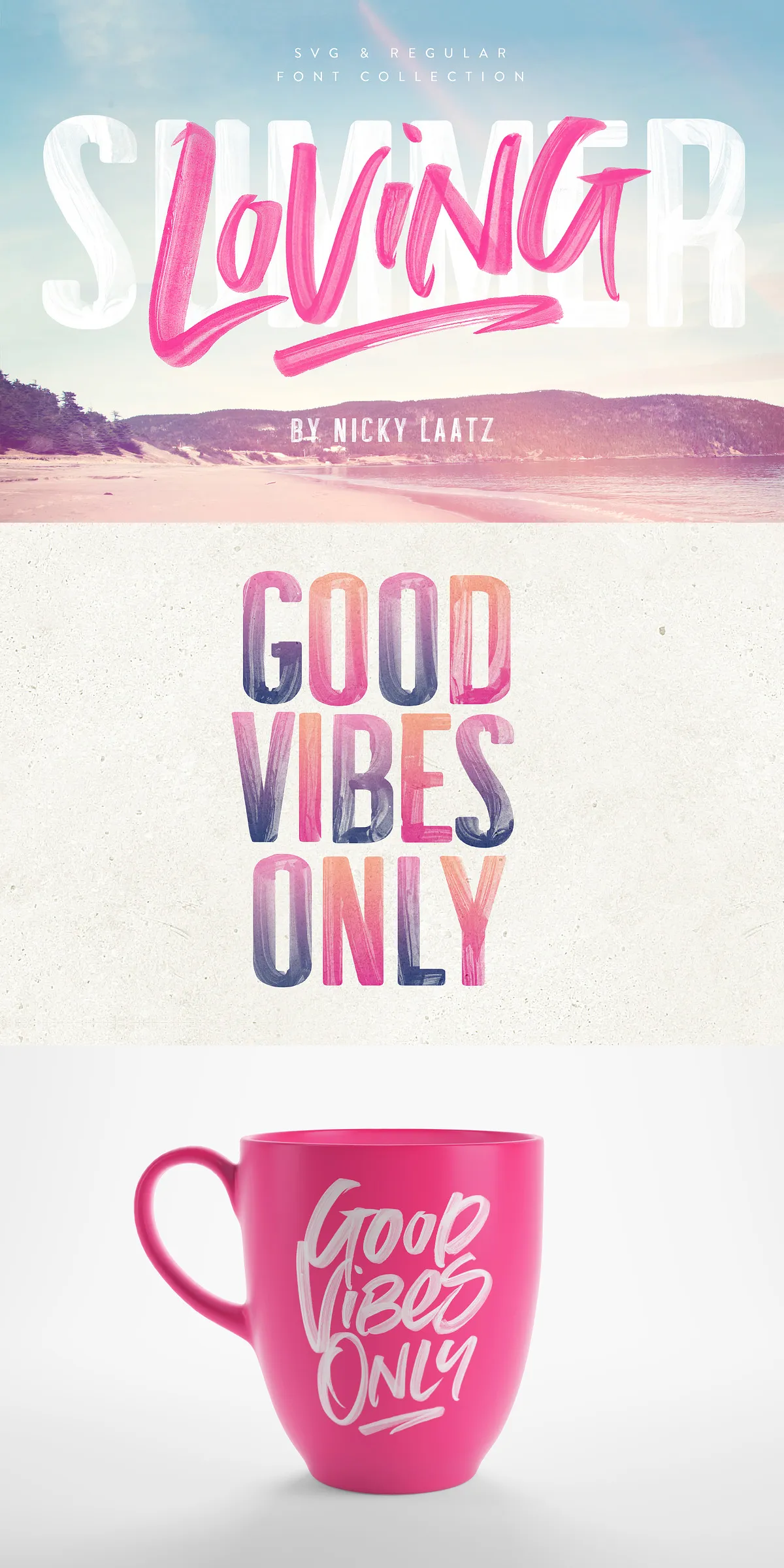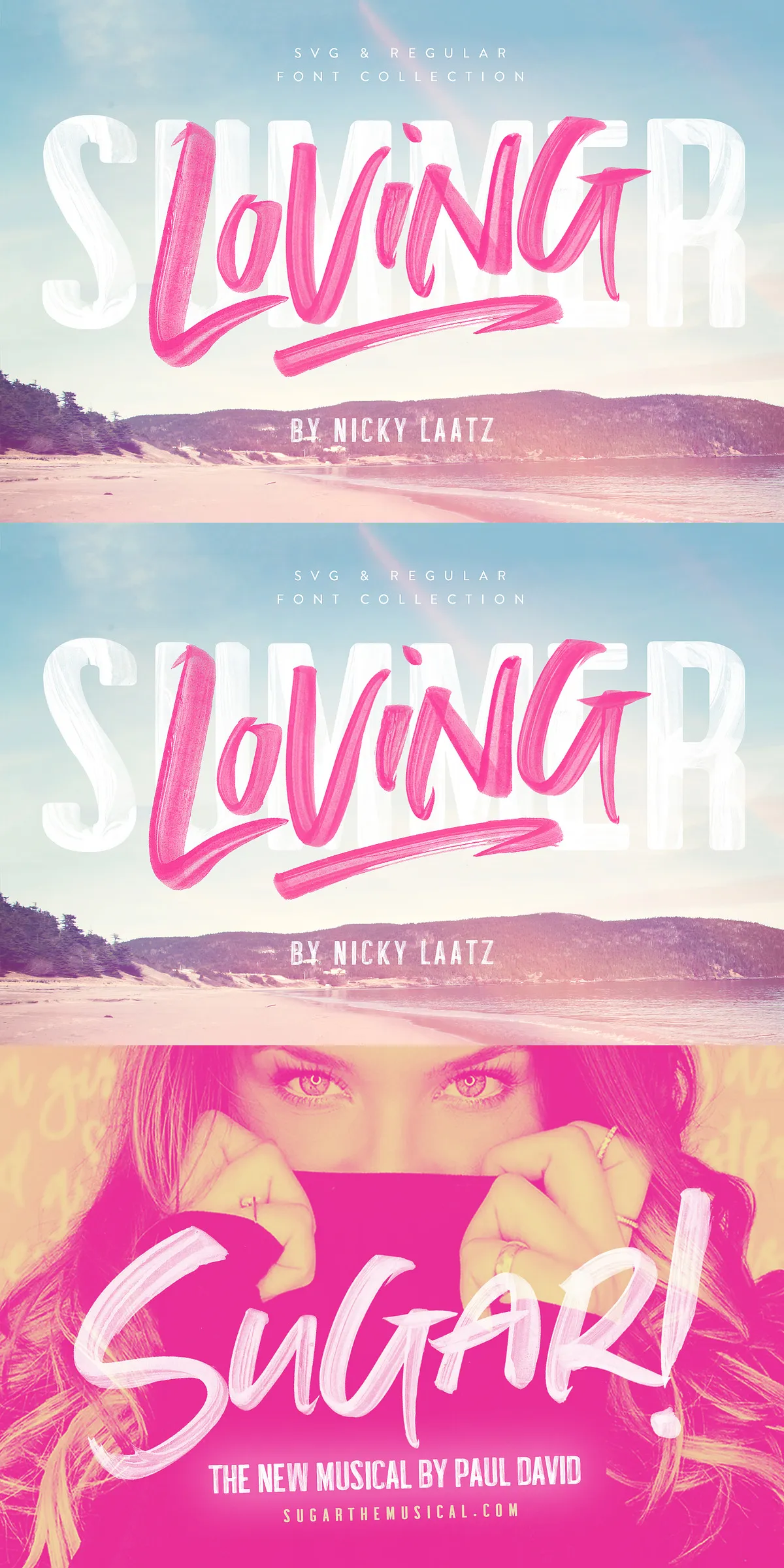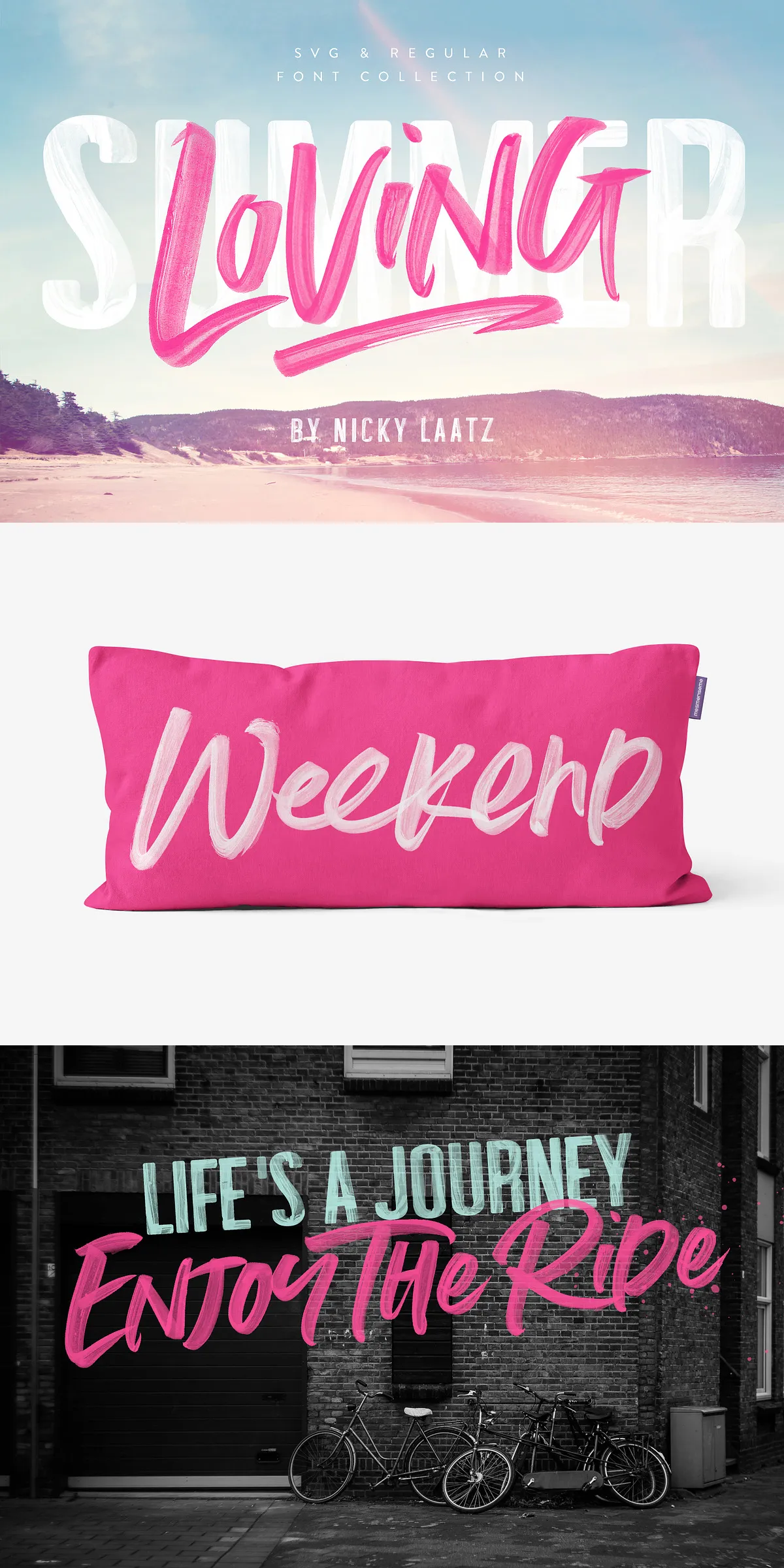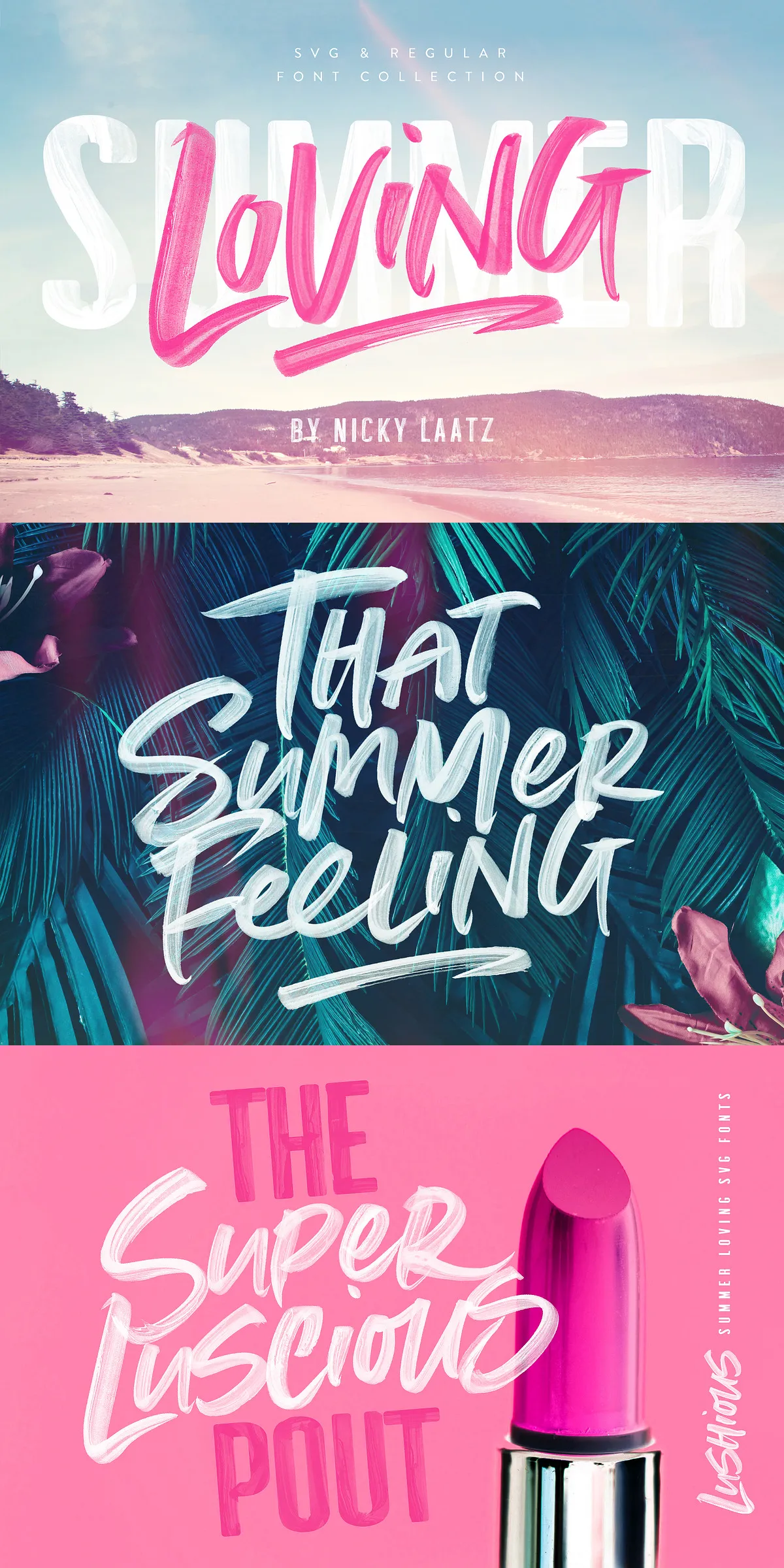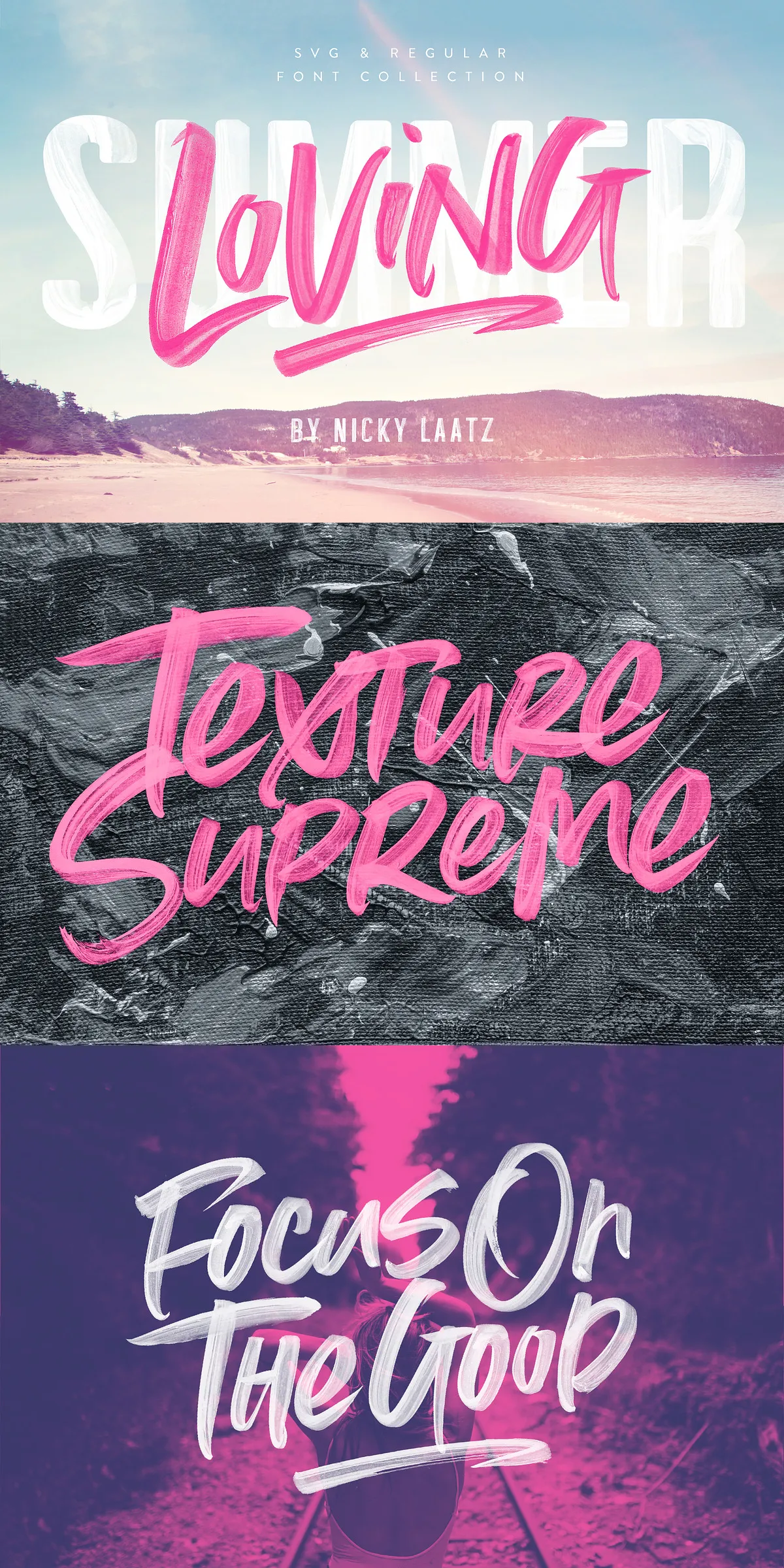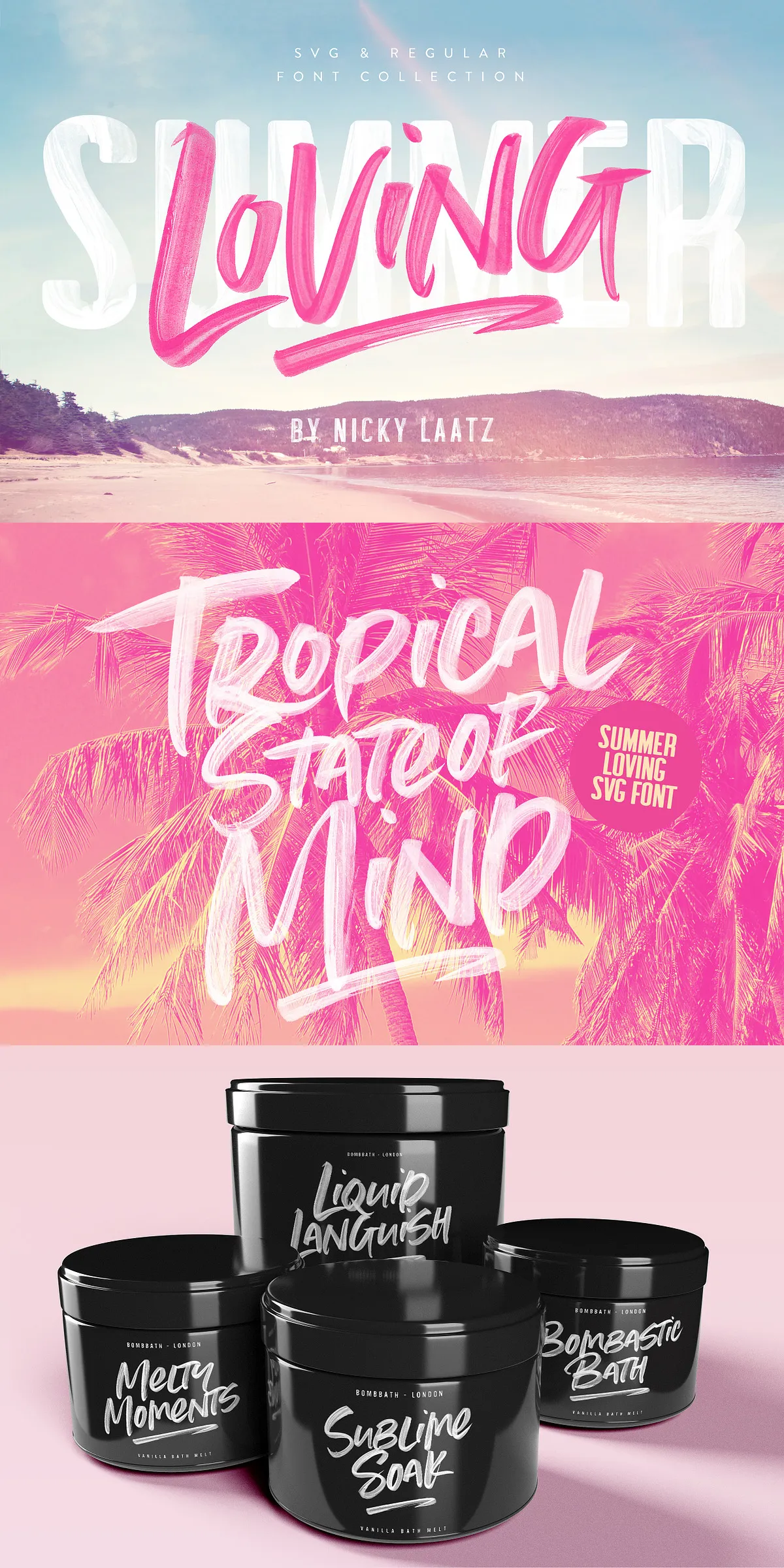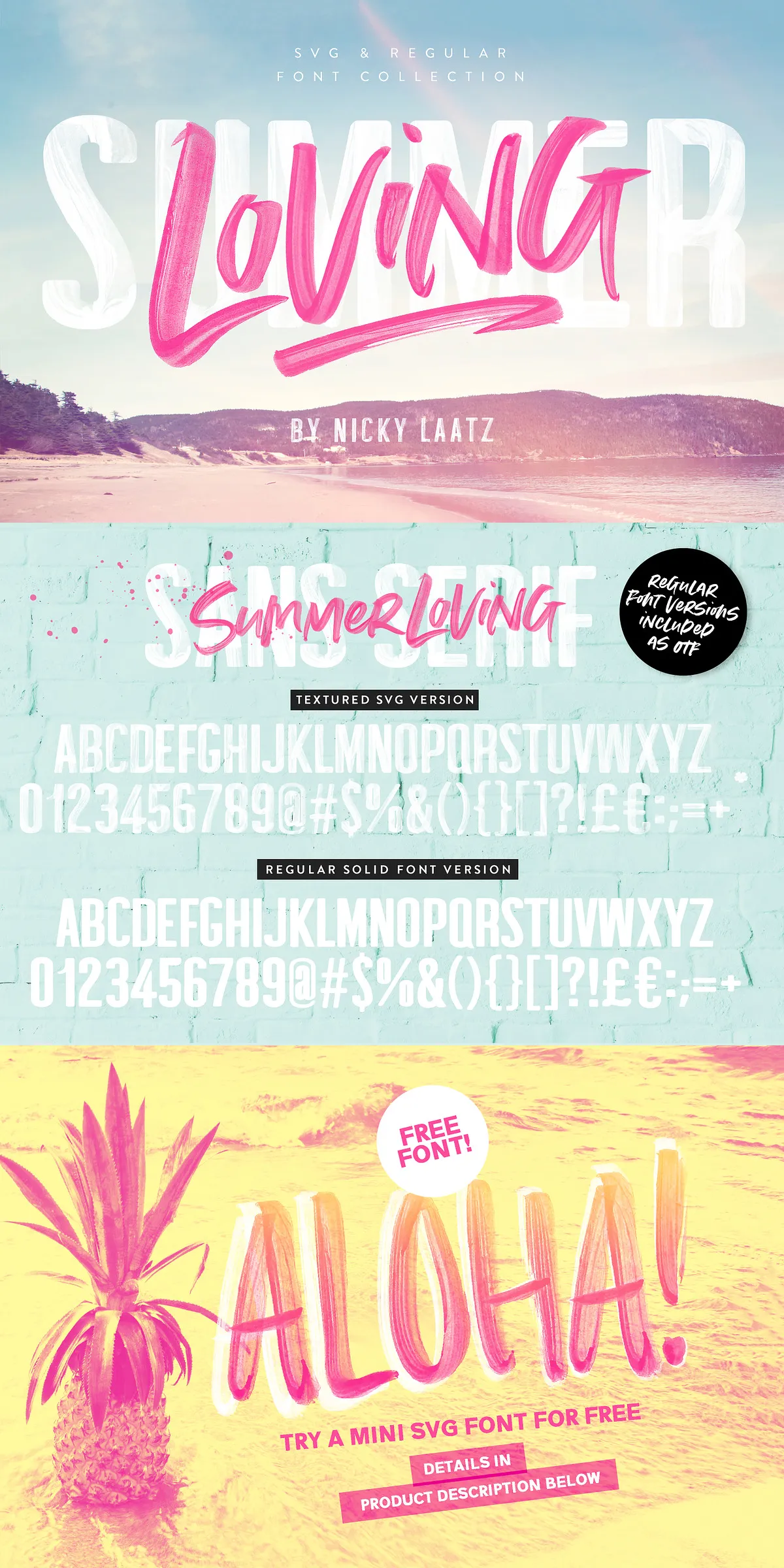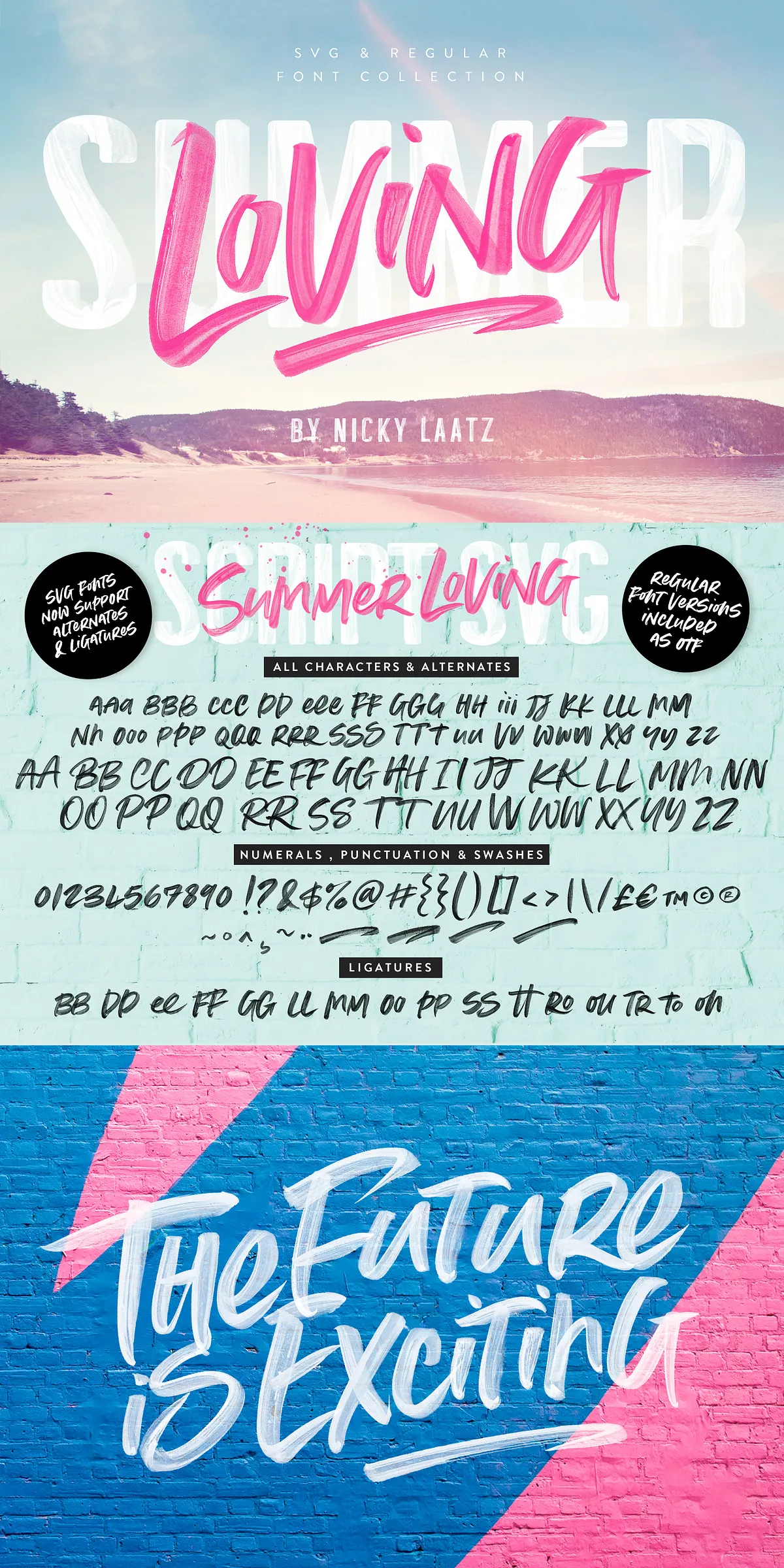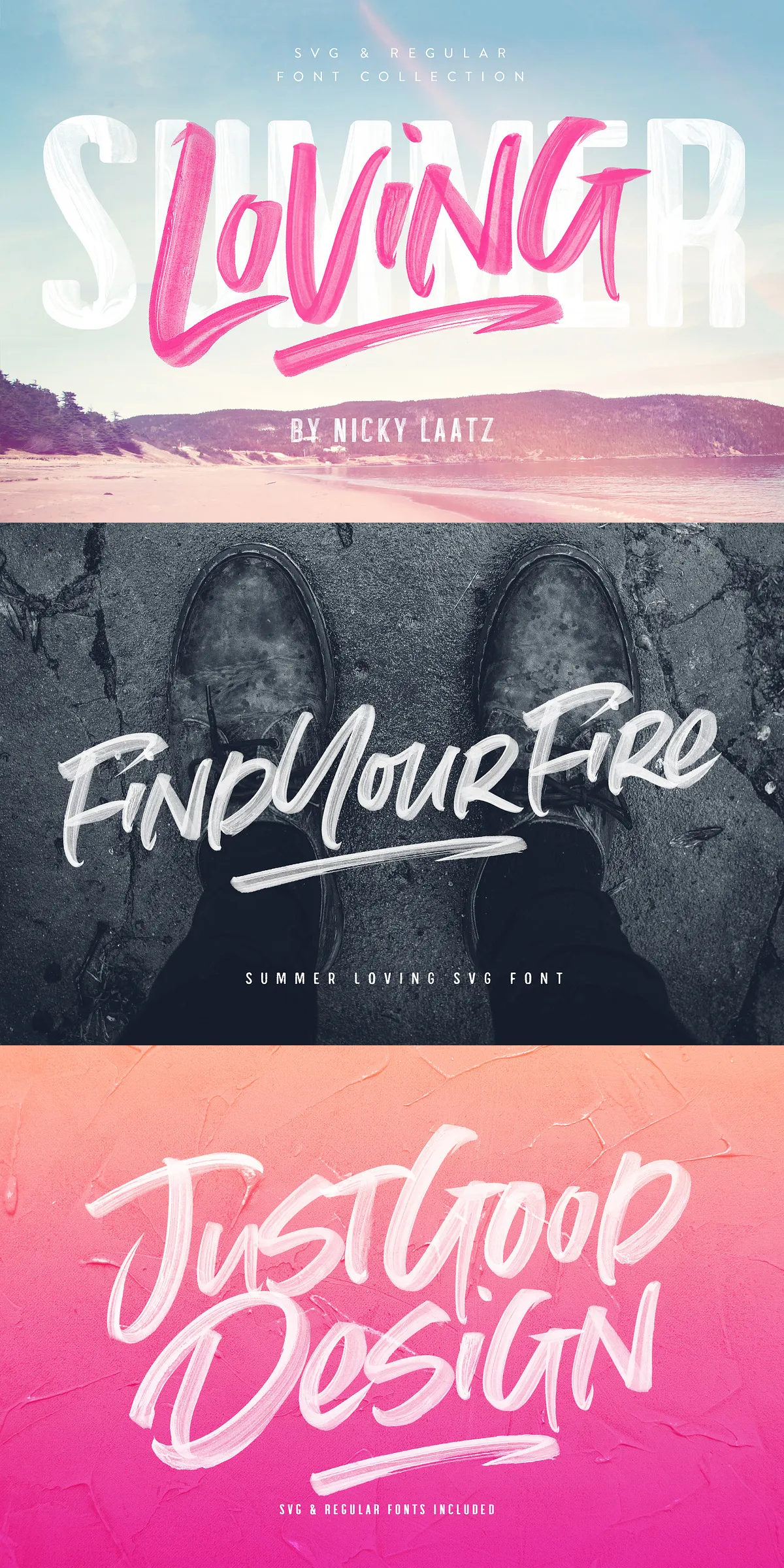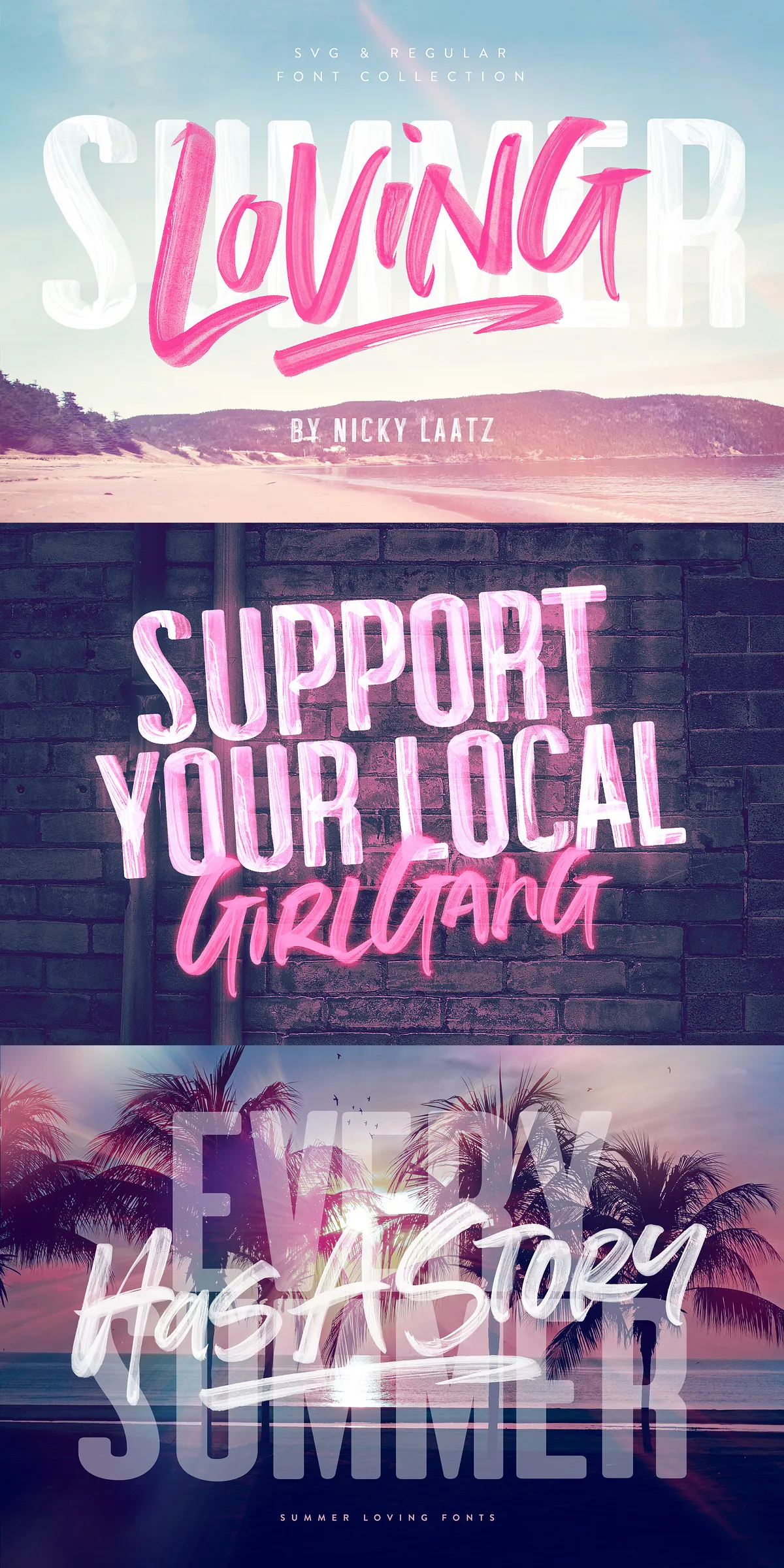
Turn up the heat this season with the Summer Loving Font Collection — a bold, expressive family of SVG fonts built to deliver authentic, high-resolution hand-painted aesthetics without the hours of manual labor. Designed for creatives who crave texture, character, and instant visual impact, this collection brings the soul of handmade lettering directly into your workflow. Whether you’re crafting festival posters, summer branding, social media graphics, or digital illustrations, these fonts are your shortcut to a vibrant, sun-kissed style.
Why This Collection Stands Out: Real Texture, Real Impact
Unlike standard fonts that rely on flat fills and static outlines, the Summer Loving Collection features ultra-textured SVG typography with realistic paintbrush details baked into every letter. This means your text doesn’t just look like it was painted — it feels like it was. From soft brushstrokes to dynamic splatter effects, each character carries the spontaneity and warmth of physical artistry.
Best of all? You don’t have to spend hours building these effects yourself. Just type a word, and let the font’s built-in texture do the work. Your project goes from basic to breathtaking in seconds.
Powerful Typography Tools Built-In: Opentype Ligatures & Alternates
This is where real design freedom begins. The collection includes full Opentype ligature support and a generous selection of alternate letterforms to help you craft authentic, organic-looking text:
- Smart ligatures automatically connect letters in natural, flowing sequences — perfect for cursive-style hand-lettering.
- Alternate characters allow you to customize tildes, flourishes, tails, and caps to match your unique artistic vision.
- Hand-illustrated variations for key letters (like ‘S’, ‘Y’, ‘L’) create visual interest and prevent repetitive patterns.
Use them to create dynamic phrase treatments, branded slogans, or one-of-a-kind titles that look handcrafted — not mass-produced.
Perfect for Summer-Inspired Projects Across Industries
Whether you’re designing for beachwear brands, music festivals, travel agencies, or lifestyle content, these fonts deliver unmatched seasonal energy:
Summer Branding & Packaging
Give your product labels, packaging inserts, or brand logos a carefree, artisanal vibe. The texture and imperfections of these fonts convey craftsmanship and authenticity, ideal for organic products, smoothie brands, or boutique resorts.
Social Media & Digital Content
Create scroll-stopping Instagram posts, Facebook stories, or TikTok thumbnails. The bold, expressive style ensures your text grabs attention instantly — even at small sizes.
Festival & Event Design
Perfect for concert posters, ticket designs, and promotional graphics. The vibrant feel of these fonts embodies the spirit of live music, beach parties, and outdoor celebrations.
Digital Art & Illustrations
Use these fonts as integrated elements in your digital paintings, mixed-media illustrations, or layered designs. Their textured quality blends seamlessly with hand-drawn backgrounds.
- Opentype ligatures — Built-in for natural character pairing and fluid flow.
- Alternate letters — Over a dozen custom variations to keep your text unique.
The Summer Loving Font Collection isn’t just about typography — it’s about tone, feeling, and emotion. It gives you the expressive power to reflect the warmth, freedom, and joy of the season. No more generic fonts. No more repetitive layouts. Just bold, textured, authentic lettering that speaks directly to the heart of summer.